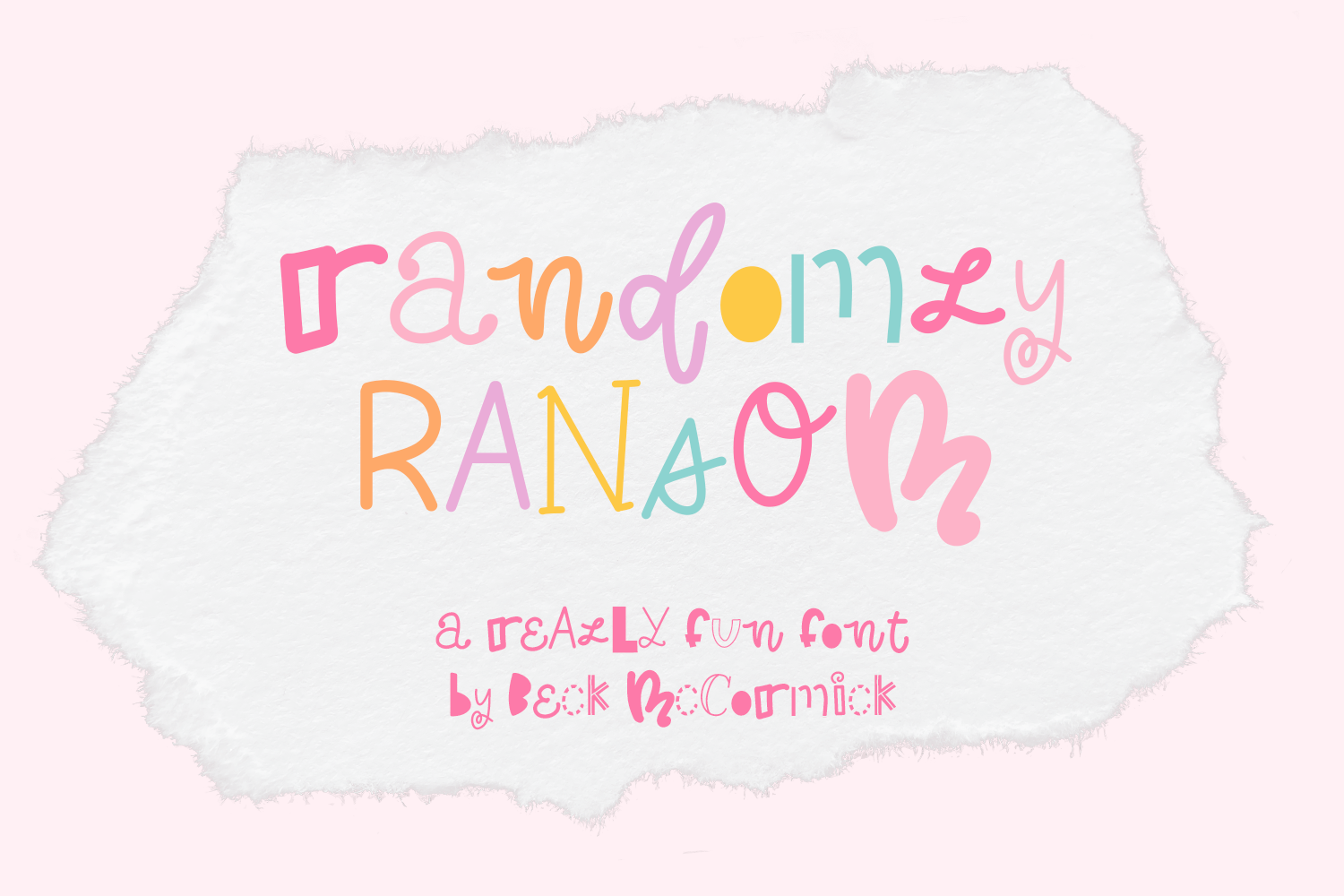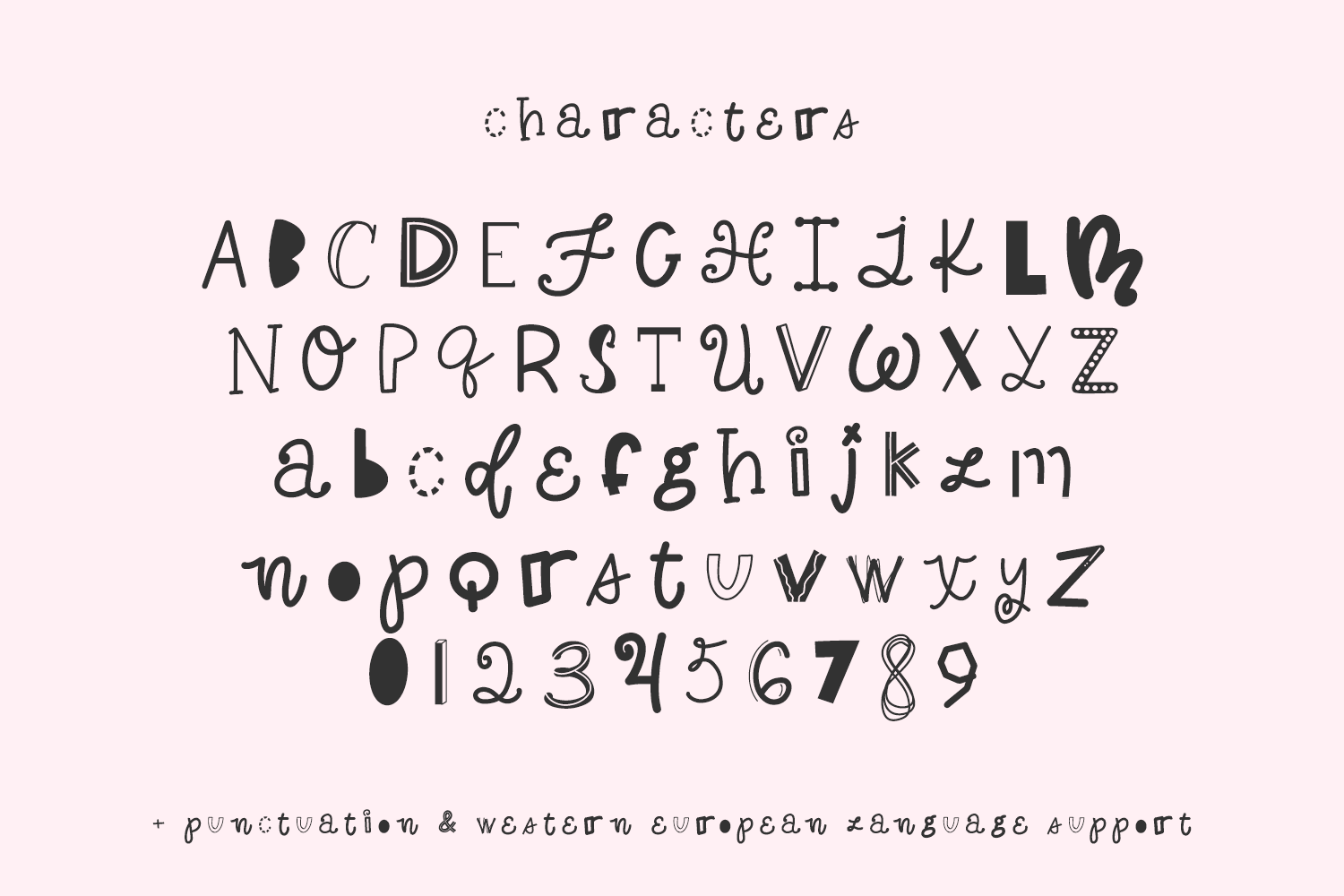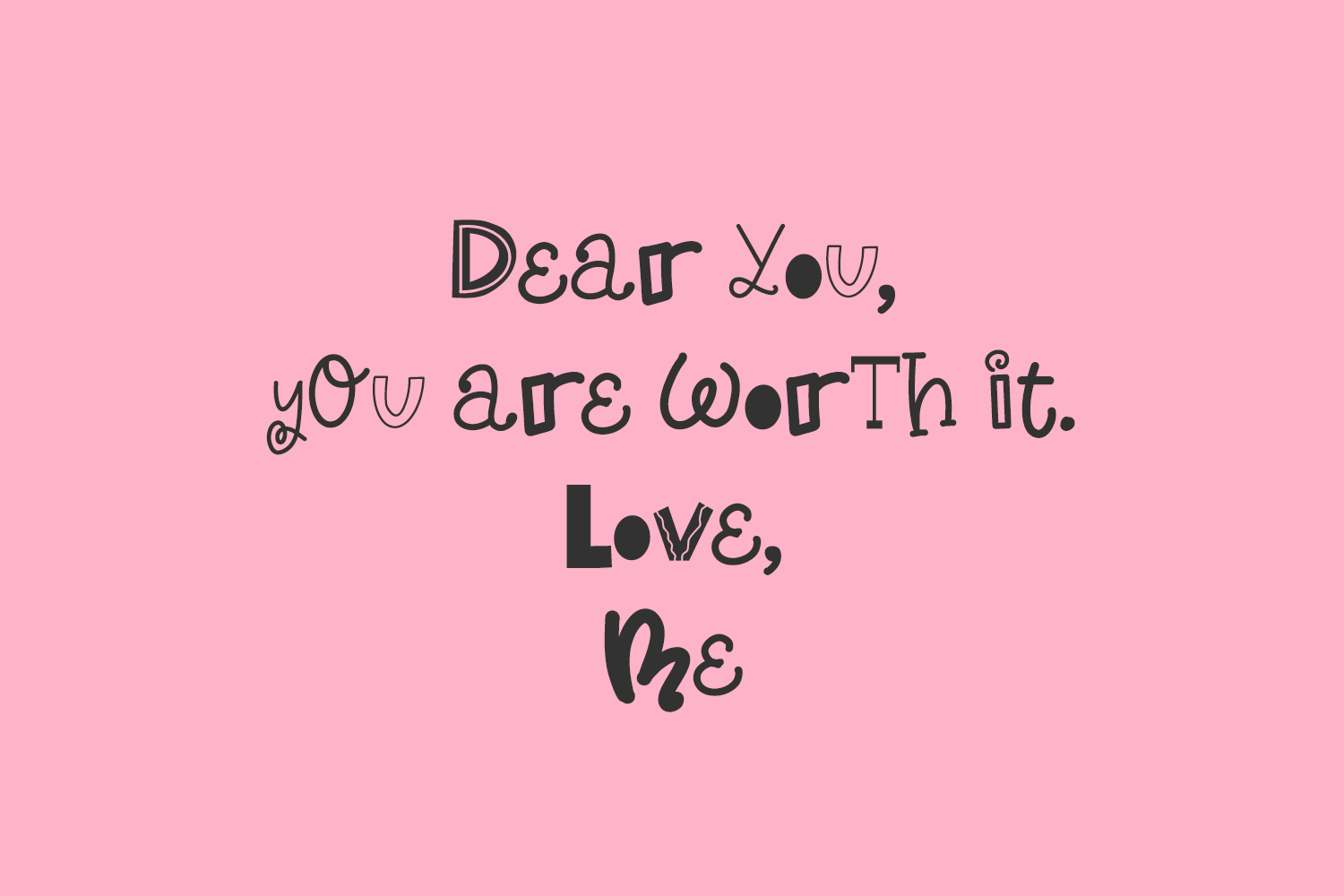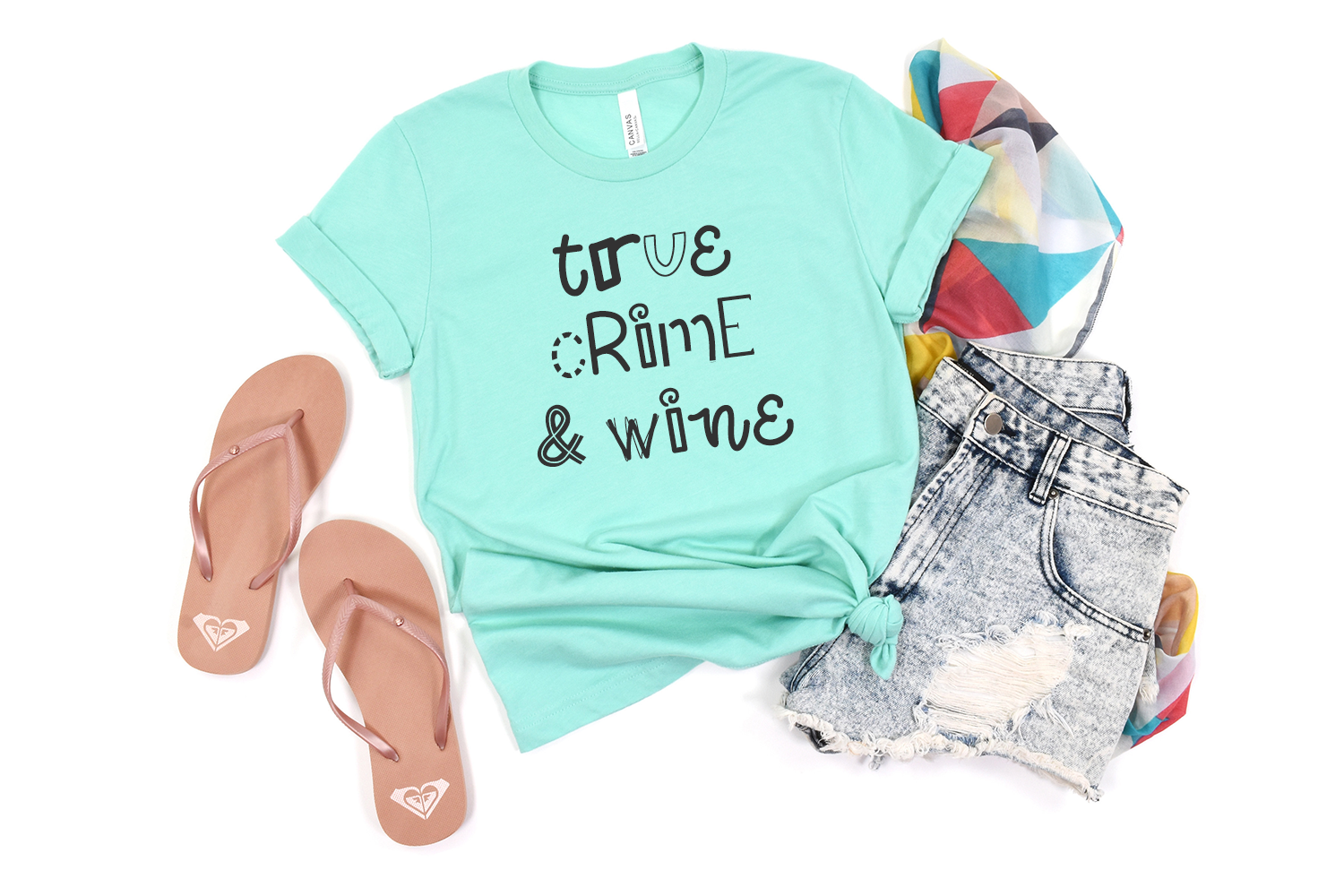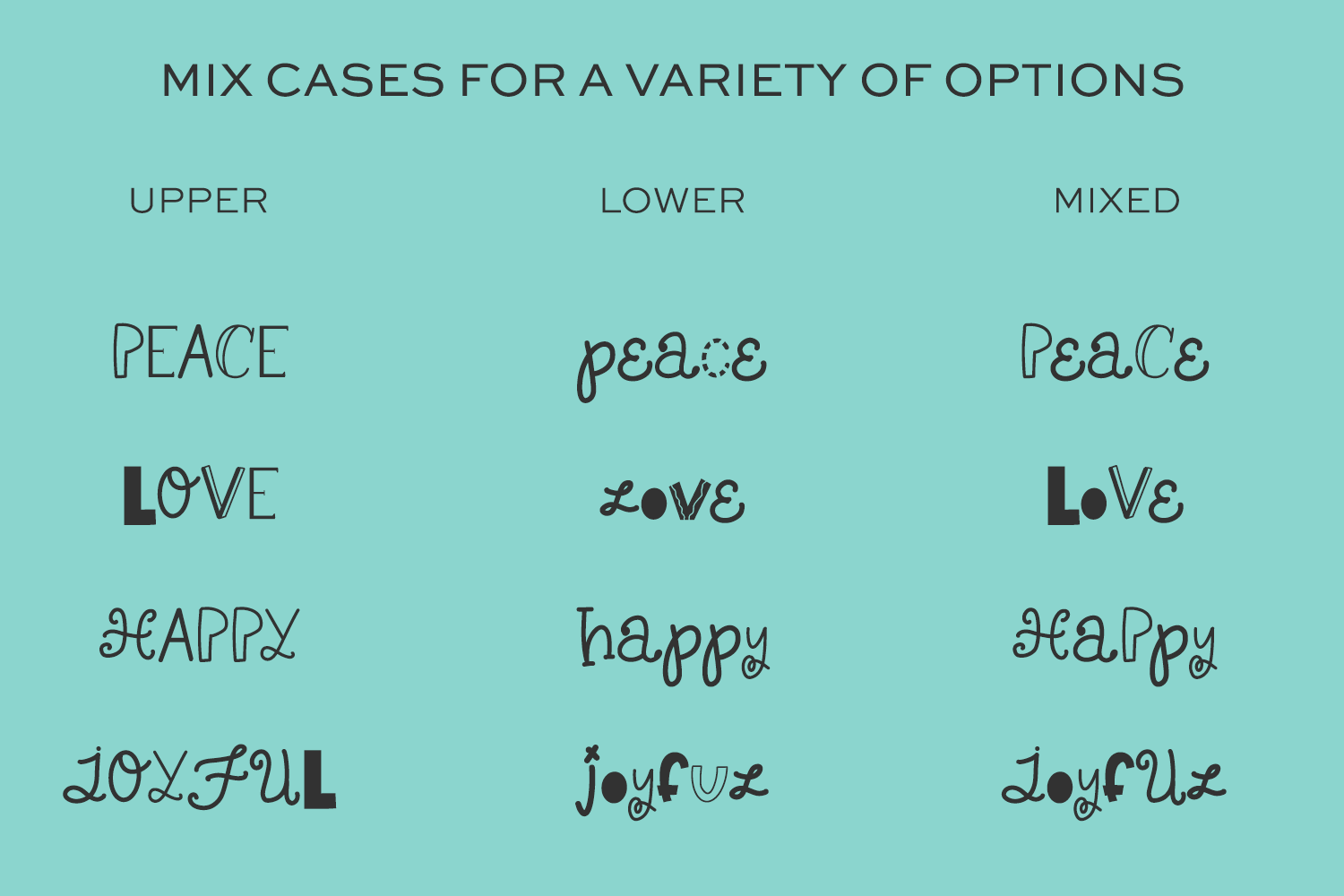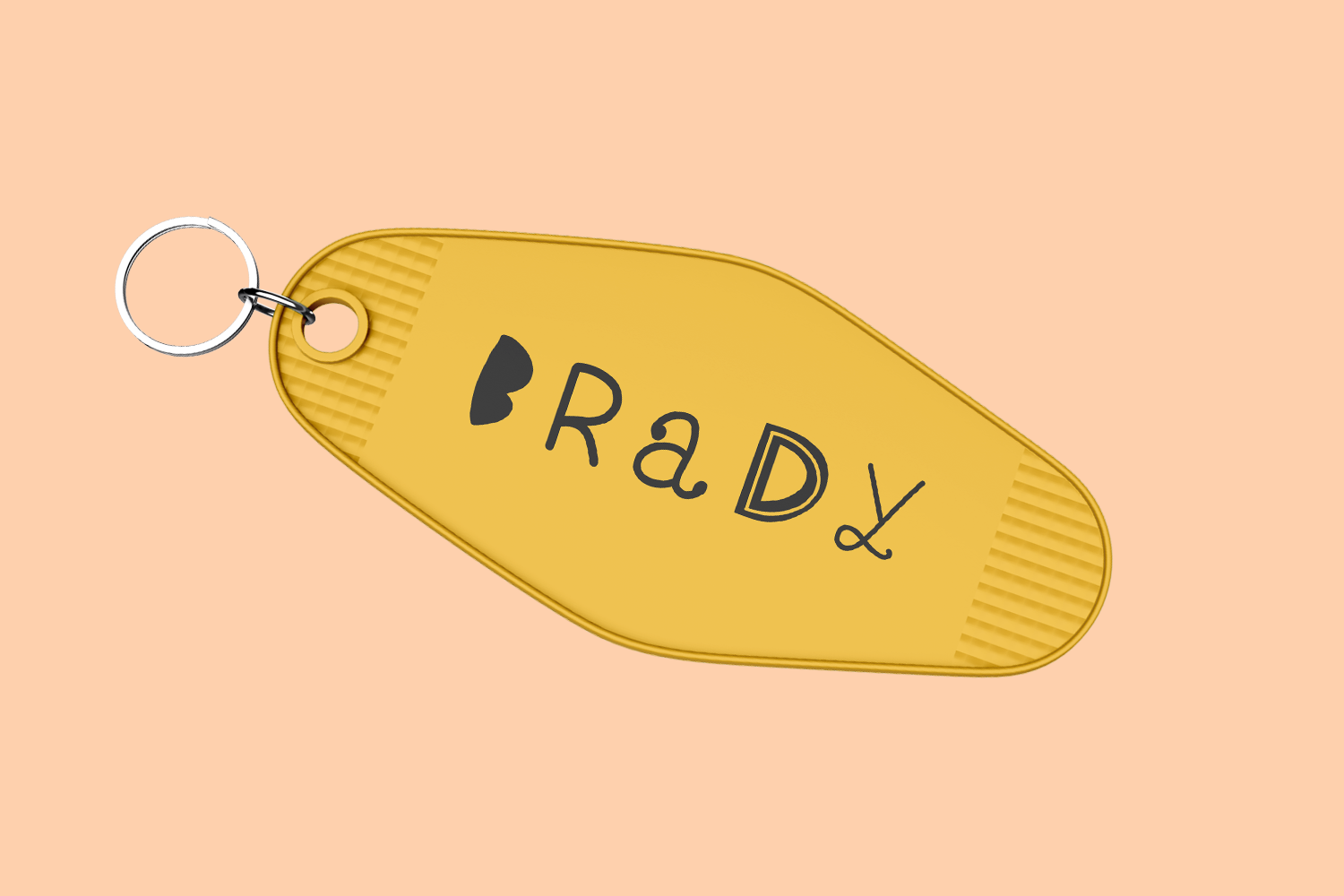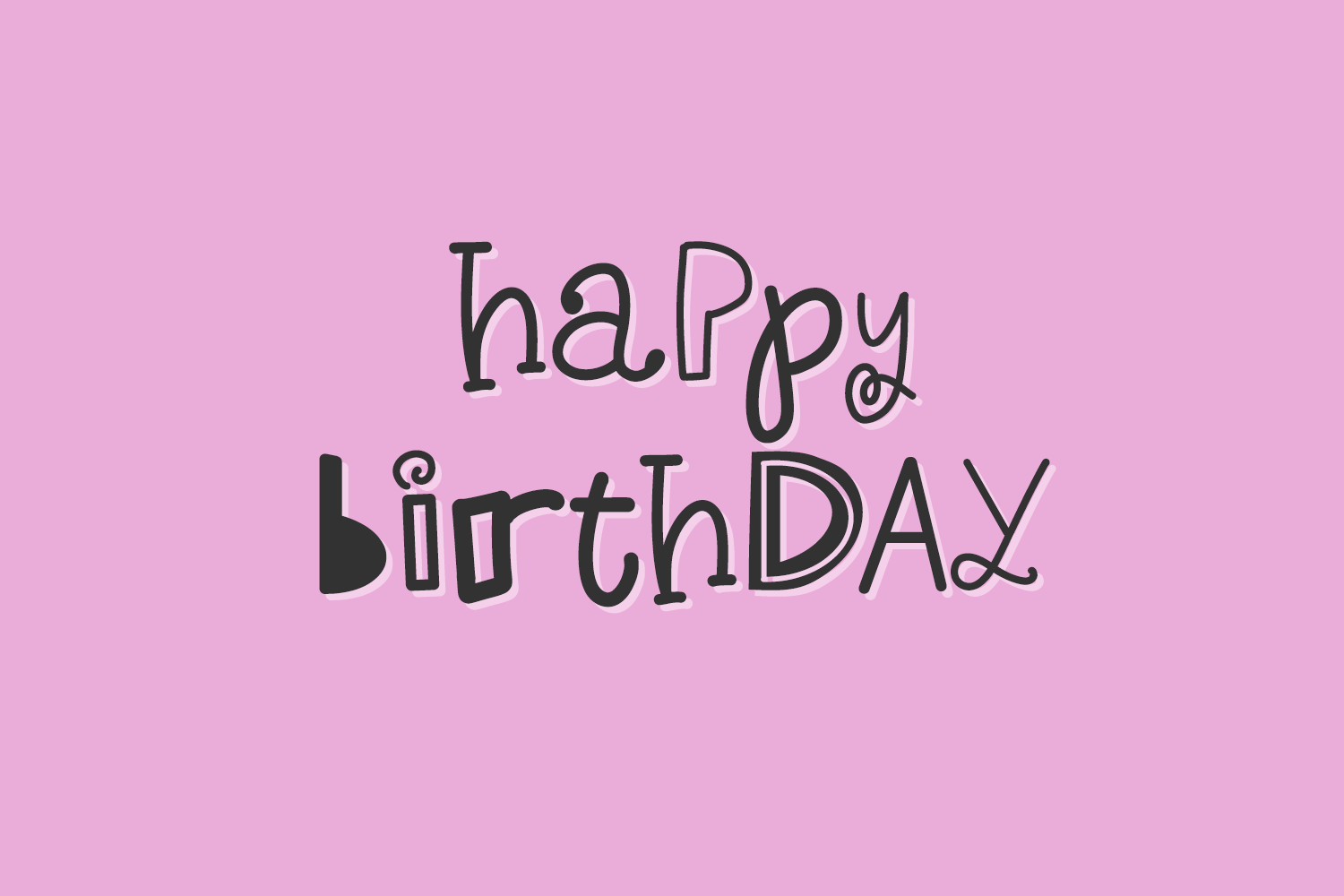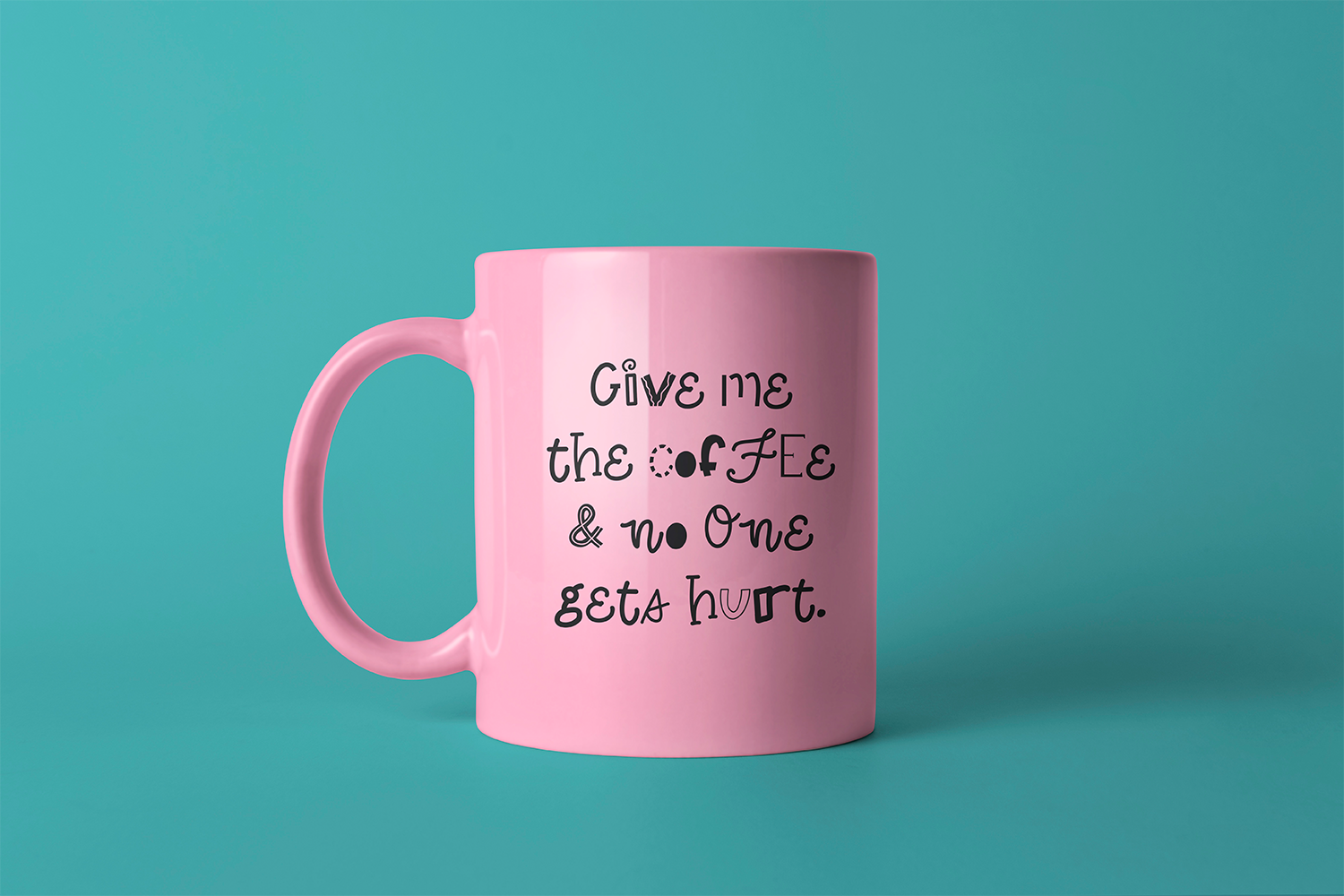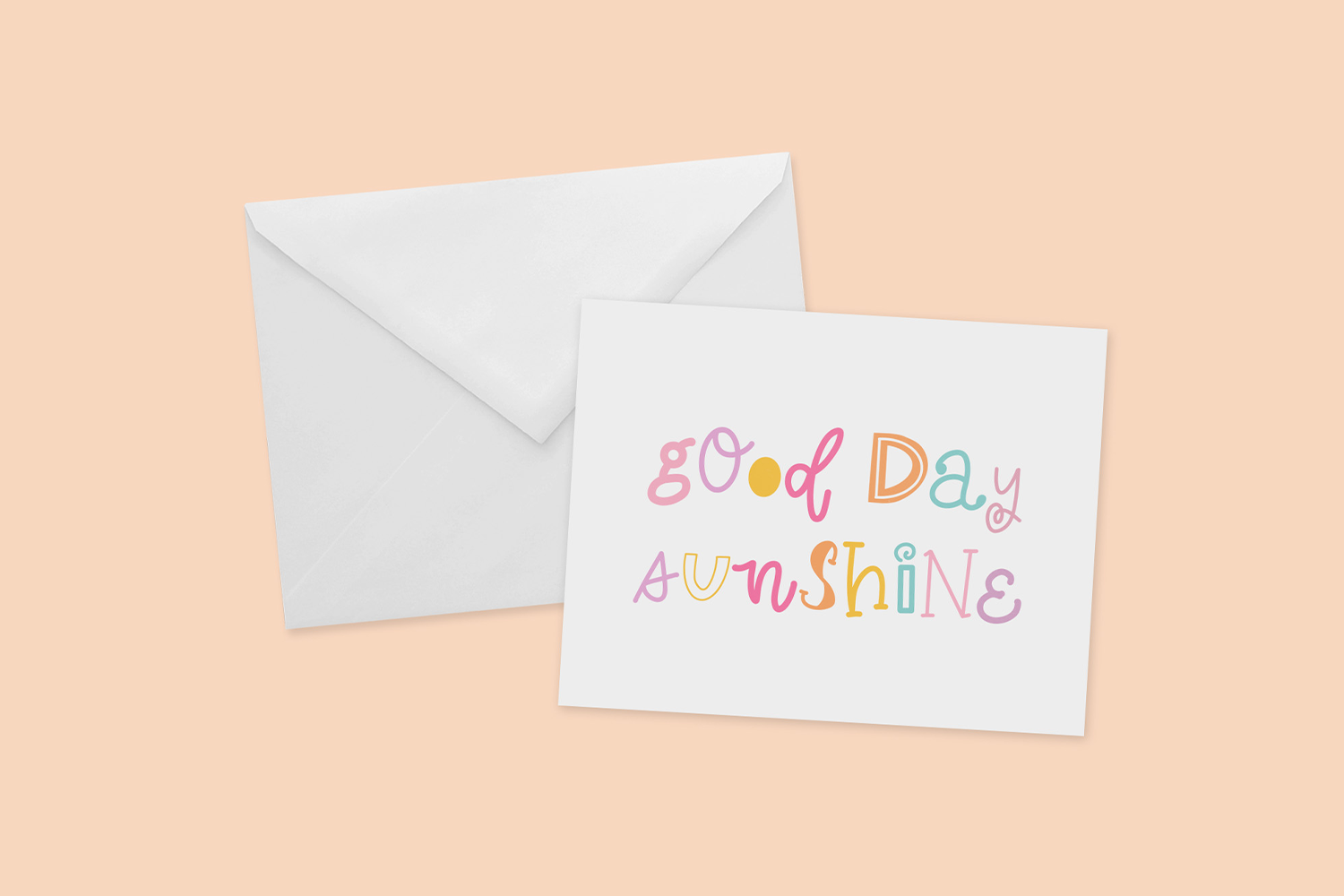
Randomly Ransom Display Font
Randomly Ransom is a super fun, crazy ransom note style font. Each character is totally different in look, feel, and style. Change the color of each character, and mix upper & lowercase characters – have the most fun with this font! Randomly Ransom is great for fun, crafty projects, print design, and more.